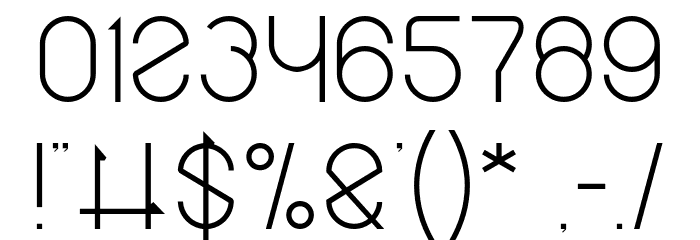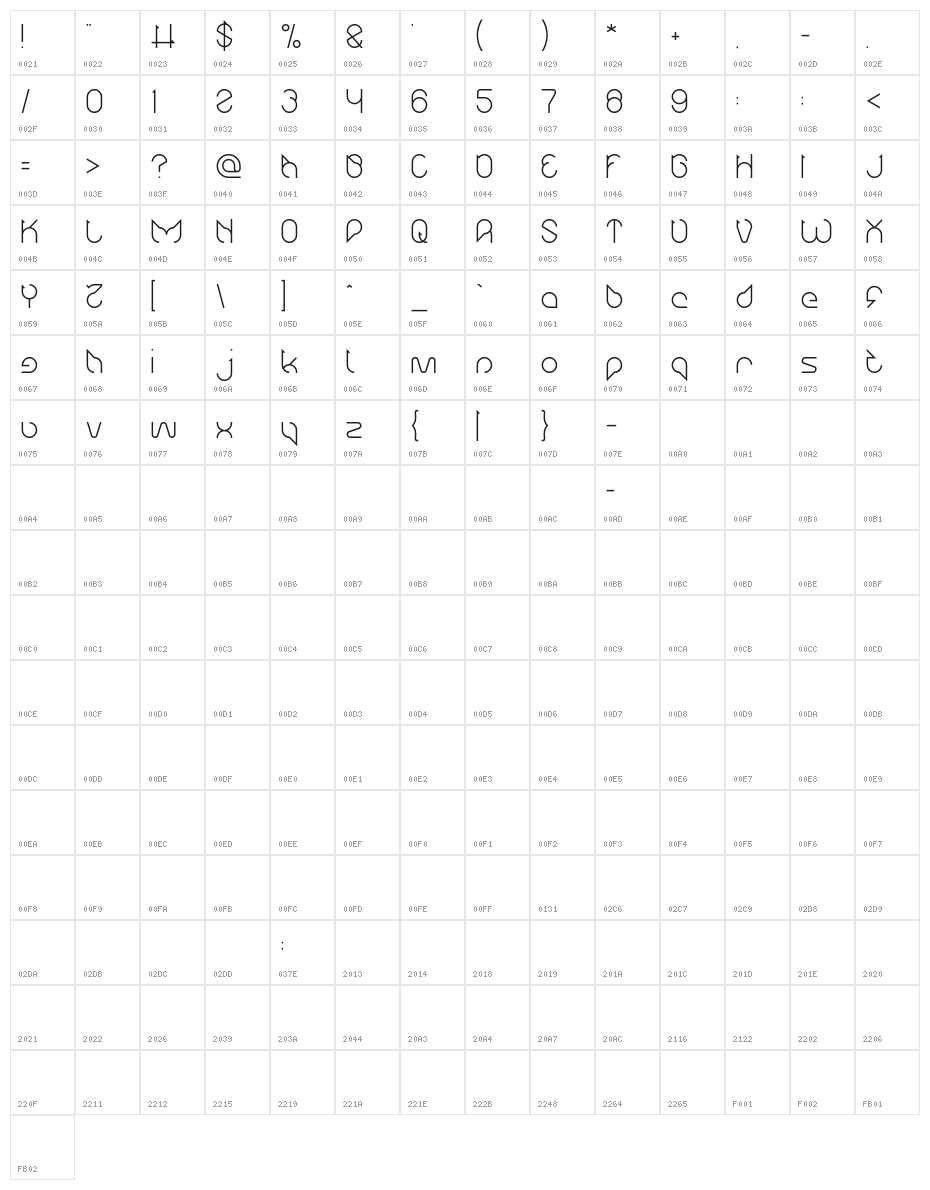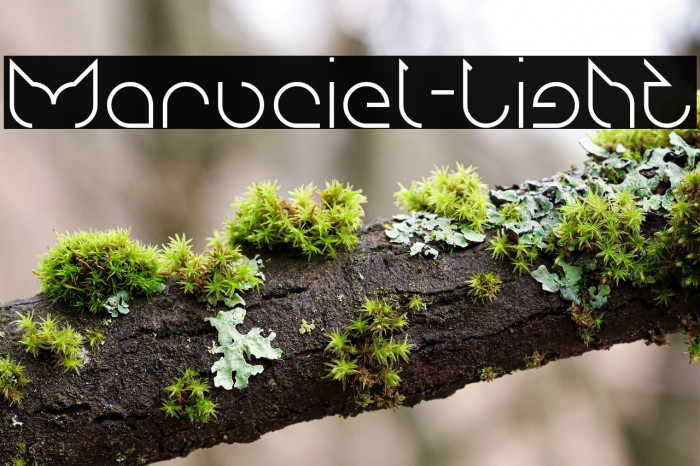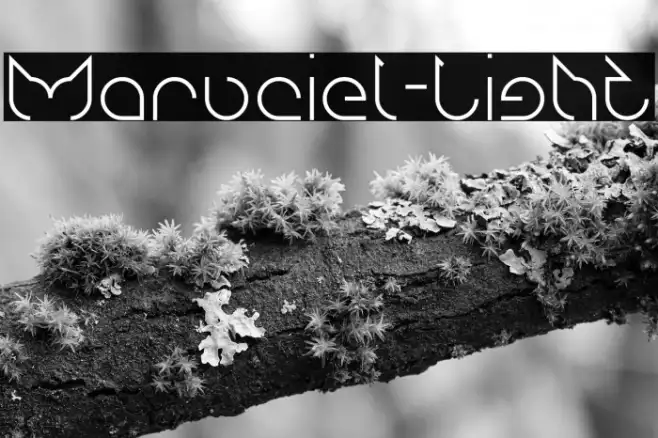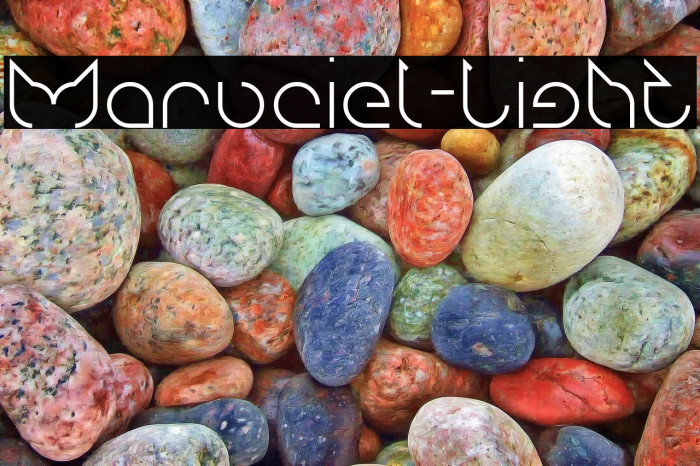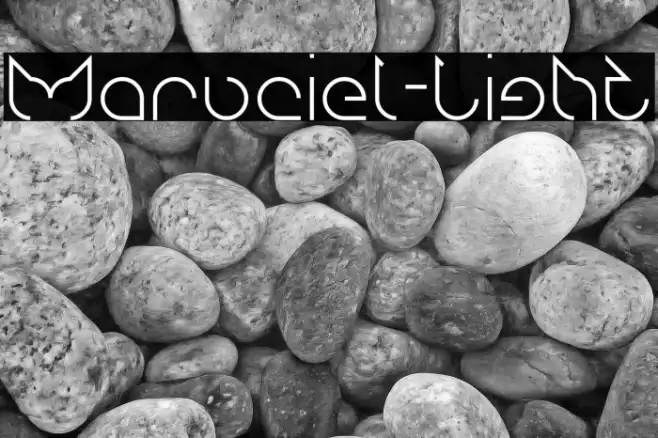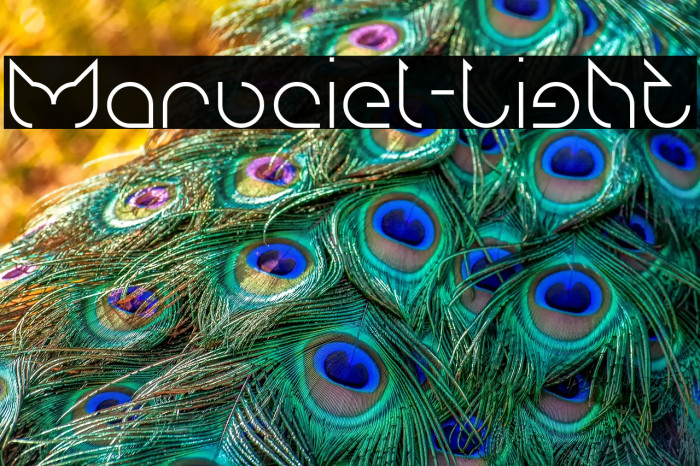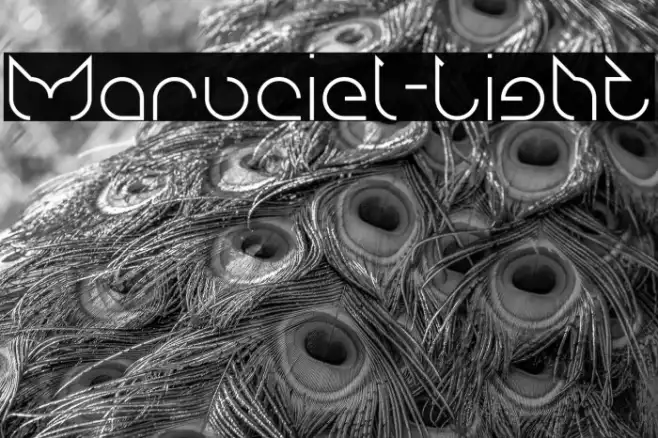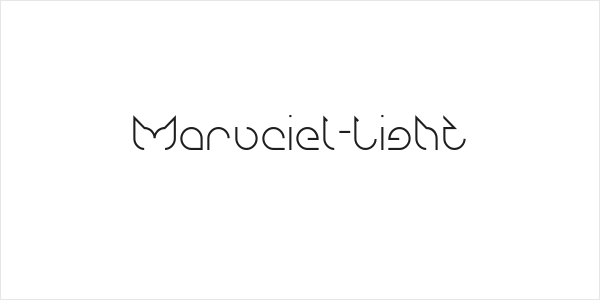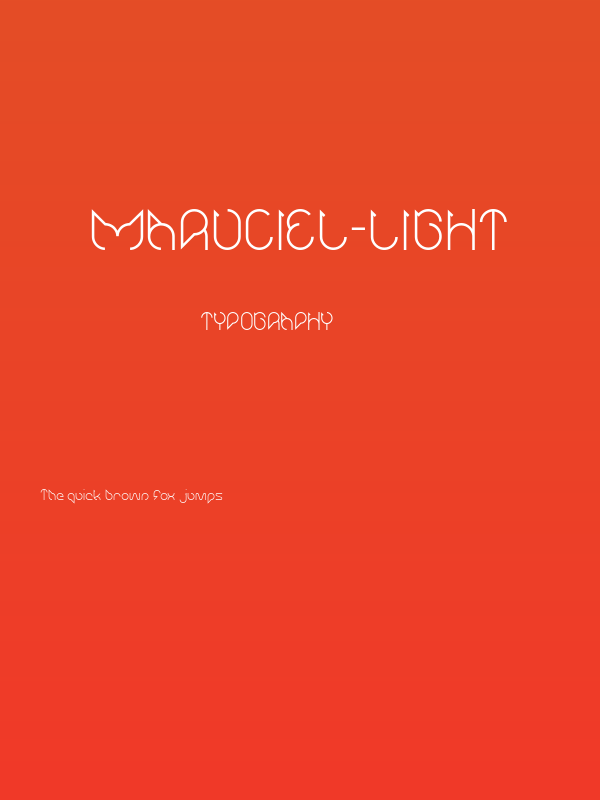
Maruciel-Light Font
Maruciel-Light Description
This font features a modern and geometric design, characterized by its clean lines and unique angular elements. The uppercase letters exhibit a futuristic style with sharp edges and distinct curves, creating a sense of movement and innovation. The lowercase letters maintain this geometric aesthetic, offering a cohesive look across the typeface. Numbers and special characters follow the same design principles, ensuring consistency throughout. The overall appearance is sleek and contemporary, making it suitable for projects that require a forward-thinking and stylish presentation.
| Proposed Projects | Ideal for tech branding, modern advertising, futuristic posters, and innovative product packaging. |